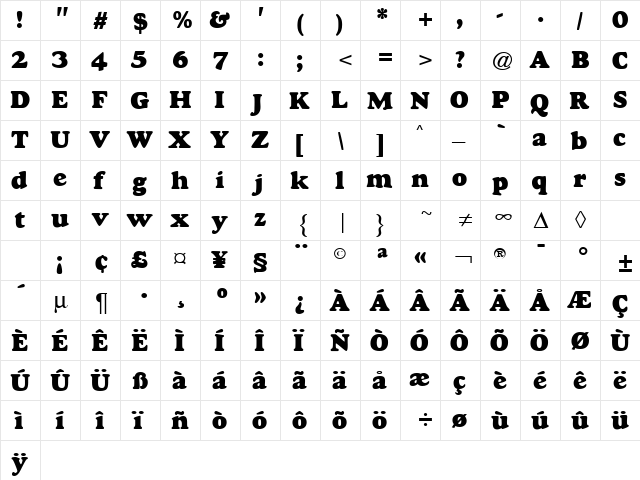
GoudyHeavyface Regular
Design Context for GoudyHeavyface Typeface
GoudyHeavyface offers clean, dependable letterforms without strong stylistic allegiance, making it a practical choice for designers who need flexibility.
Pro Tip: Use GoudyHeavyface in both headline and body roles to test its range before committing to a single application.